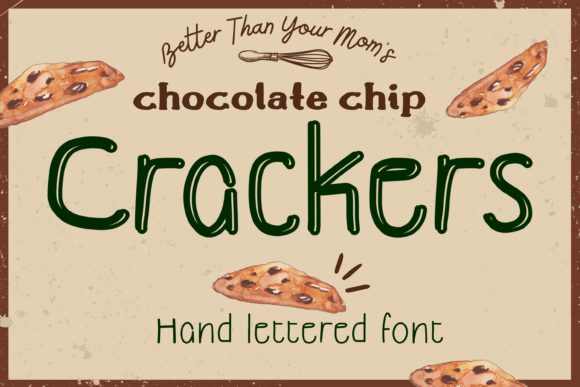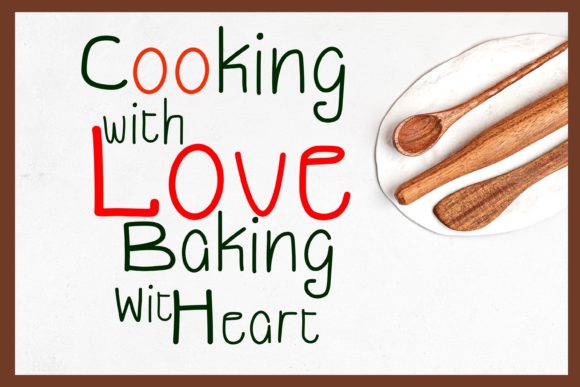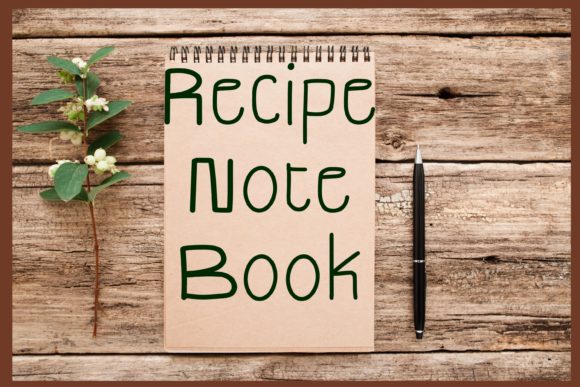
About Cracker Font
Cracker is a simple, quirky and informal handwritten font. Its authentic look and feel will add a personal and realistic feel to your designs.